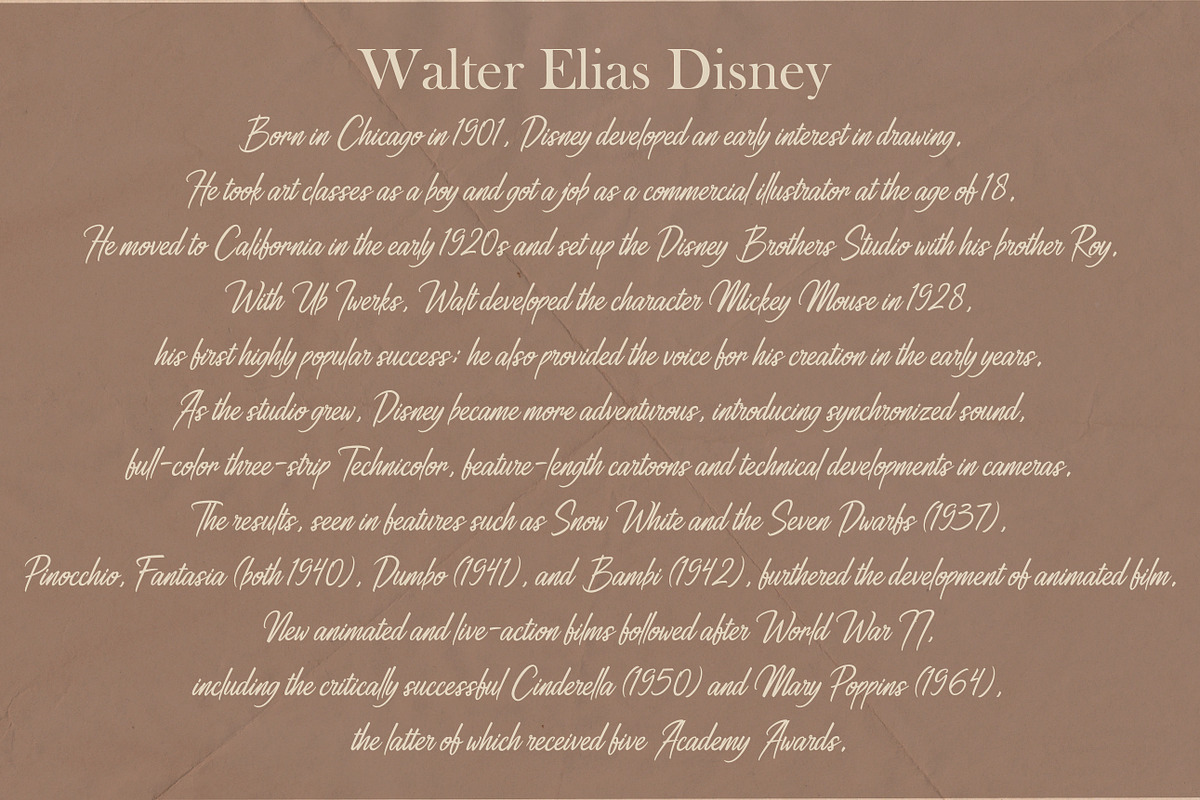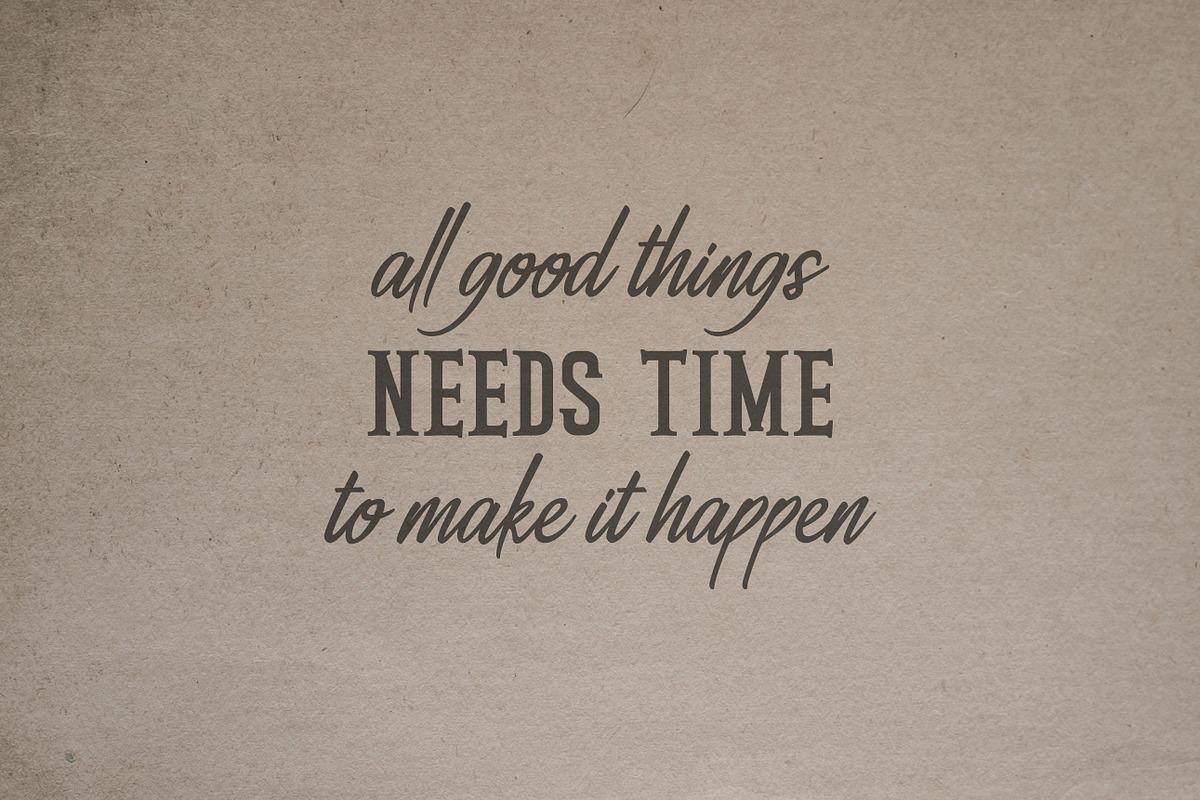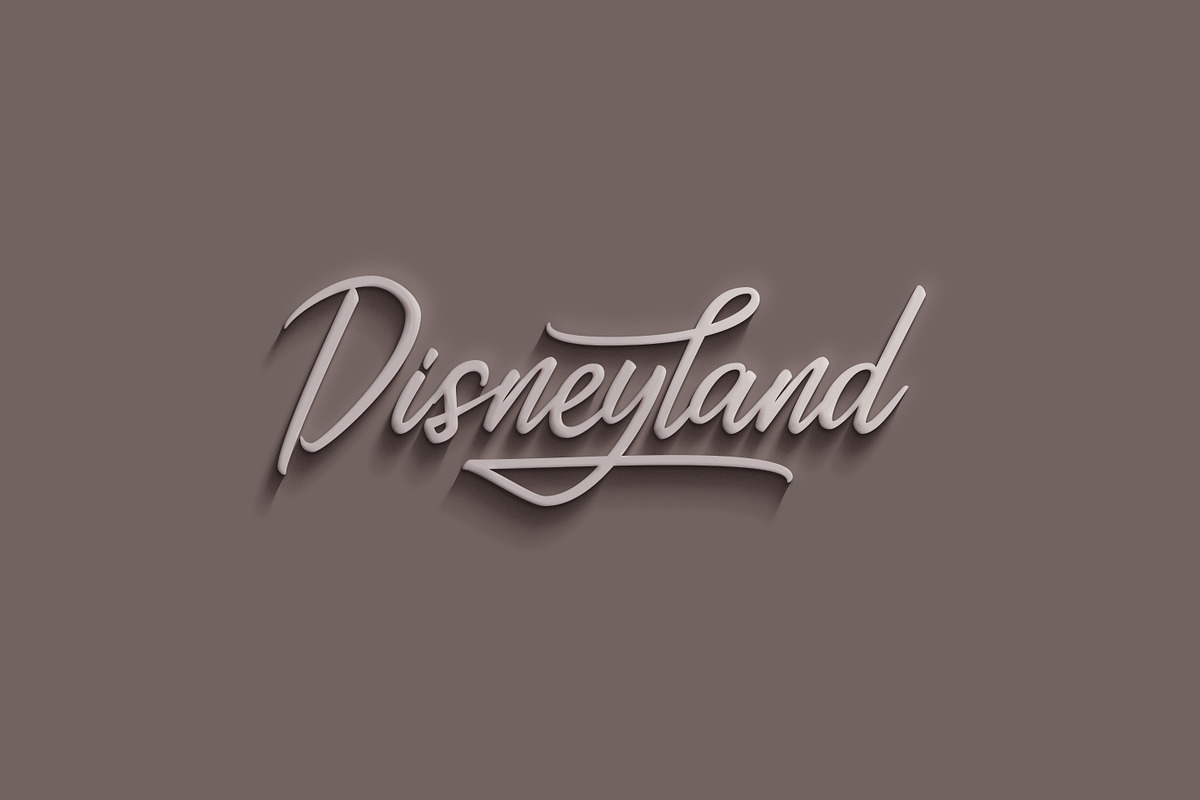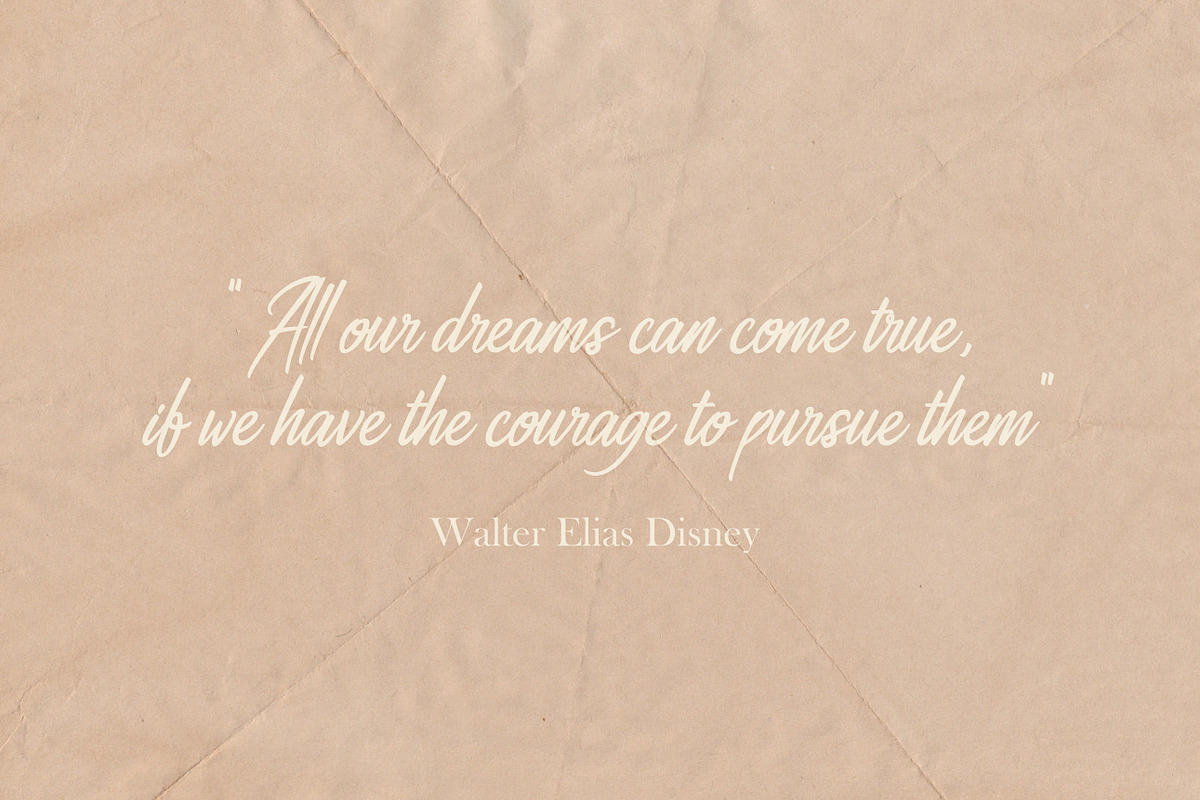
Ahtohalland elegant signature script
Ahtohalland is a elegant and beautiful script. It was made using a broad tip brush pen. This font is thin, handmade, and has a natural stroke flow. This product comes in two style, regular style for more signature feel and inline to write paragraph text. and also a condensed slab included as a bonus.
This font is perfect for logo, signature, poster, quote, and branding project like business card, brochure, and more. what you get from this purchase :